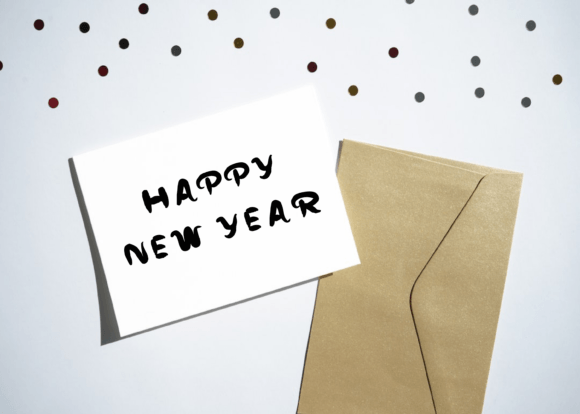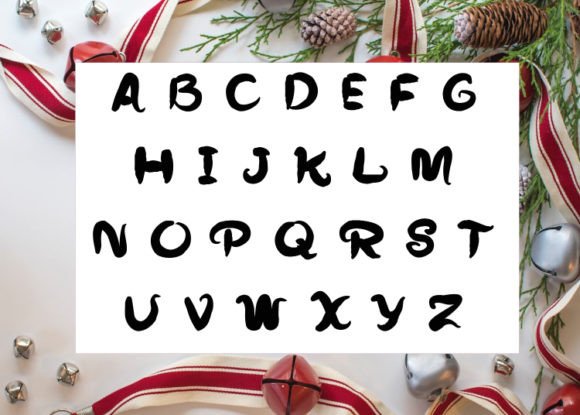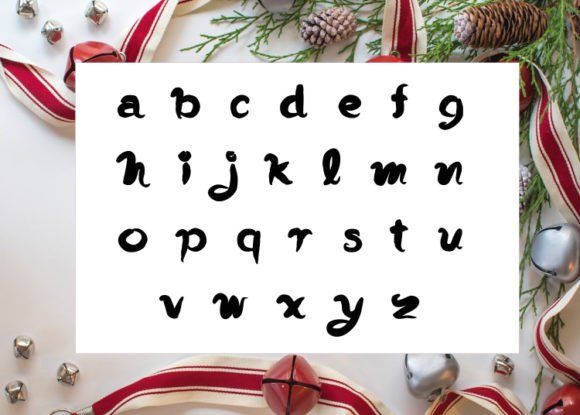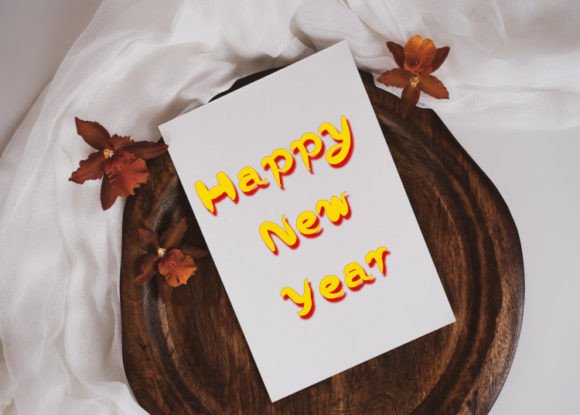
Happy New Year Handwritten Font – Sweet and Quirky Typeface
The Happy New Year Handwritten Font is a cheerful and friendly typeface designed to bring joy into your projects. With its whimsical strokes and slightly quirky characters, it instantly brightens up any design. Whether you are preparing festive cards, crafting invitations, or creating social media graphics, this handwritten font adds personality and charm.
A Joyful Style with Unique Character
This typeface balances sweetness with creativity. The handwritten style captures a natural, personal feeling, while its playful quirks make it stand out from ordinary fonts. Designers love how the Happy New Year Handwritten Font can adapt to both casual and professional projects, including branding, posters, and seasonal campaigns. Its versatility ensures your designs always feel lively and approachable.
Perfect for Festive and Creative Projects
As the name suggests, this font is ideal for holiday and celebration themes. Use it to design New Year greeting cards, festive banners, or party invitations. Its joyful nature also makes it perfect for DIY crafts, labels, and even children’s book covers. Because of its adaptable style, the Happy New Year Handwritten Font is not limited to seasonal work—you can also use it year-round whenever you want to convey warmth and happiness.
Handwritten Charm for Every Design
One of the most appealing aspects of this typeface is its authentic handwritten look. Its smooth curves and quirky shapes bring a playful energy while keeping your text legible and clean. This makes it especially effective for personal projects such as invitations and cards, but also for digital content where friendly and unique typography helps attract attention.
Why Designers Choose Happy New Year Handwritten Font
Designers value fonts that deliver both style and usability. The Happy New Year Handwritten Font achieves this balance by offering a quirky, sweet design that remains highly versatile. Its ability to brighten up any project makes it a must-have typeface for creators working on festive designs, branding campaigns, or craft projects.